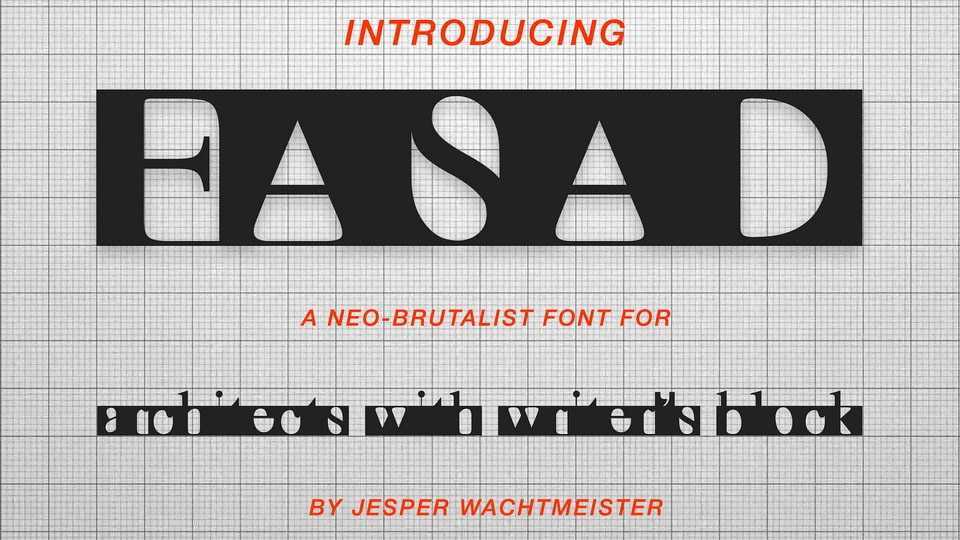
Download Fasad font, a display typeface curated to alleviate architects’ creative stagnation, draws inspiration from the intriguing architectural qualities embedded within letters and glyphs.
Designer: Jesper Wachtmeister